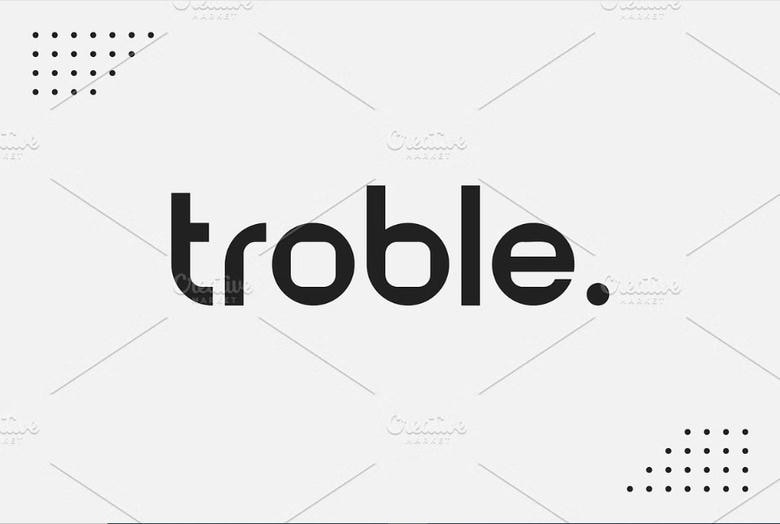
Troble Font
Troble is a modern sans serif type face designed by Iwan Alwan which looks elegant and prominent while it also looks neat and quickly printable. Great for logo work, headers, billboards, and so much more, Troble delivers a solid, powerful, professional look.
Ligatures and a set of alternates, as well as support for multiple languages, make Troble a highly universal font, and its appearance can be confidently attributed to the category of modern and concise. These fonts are perfect for any logo Buy A logo for your product after using any of these fonts such as product logo, wedding logo, clothing logo, logo for vintage design, and so on.